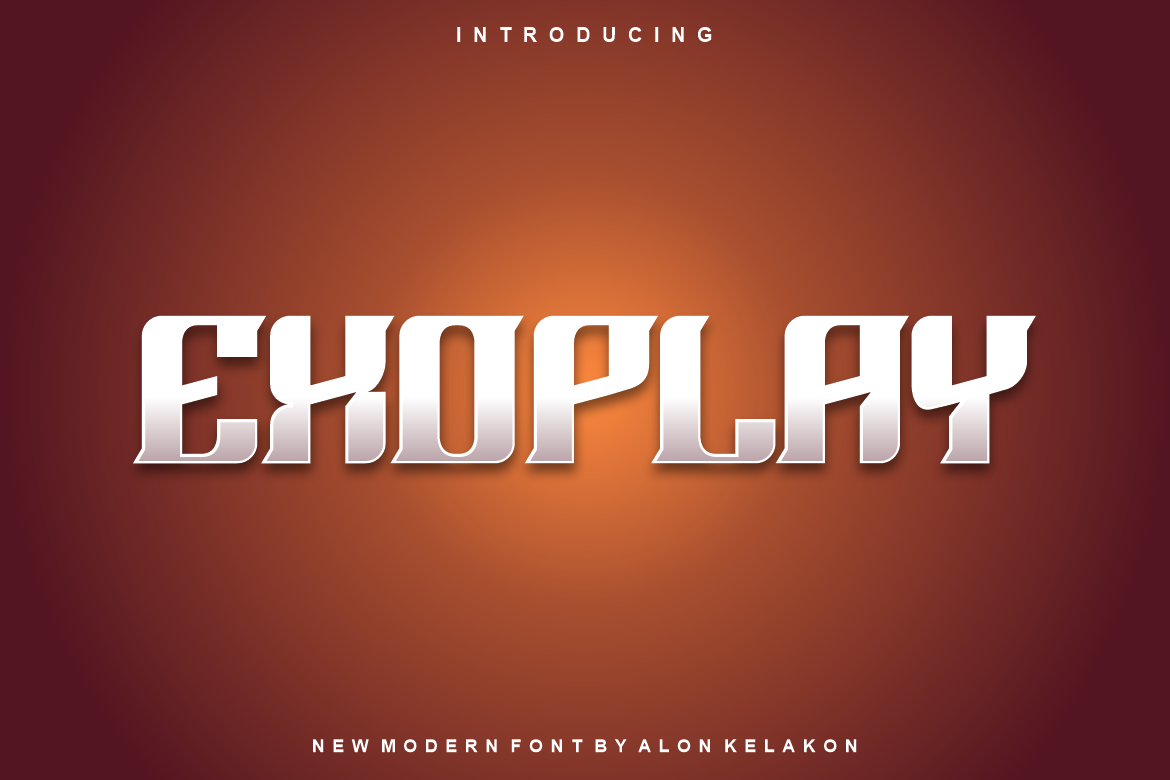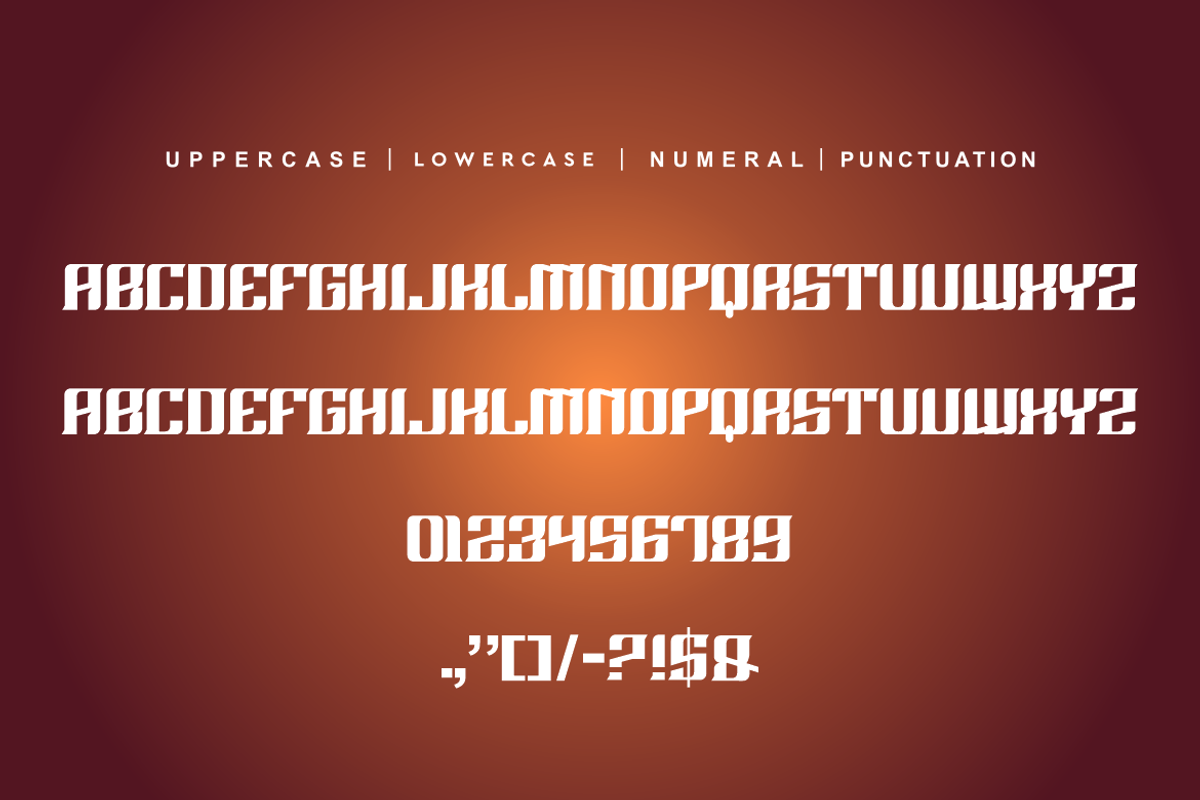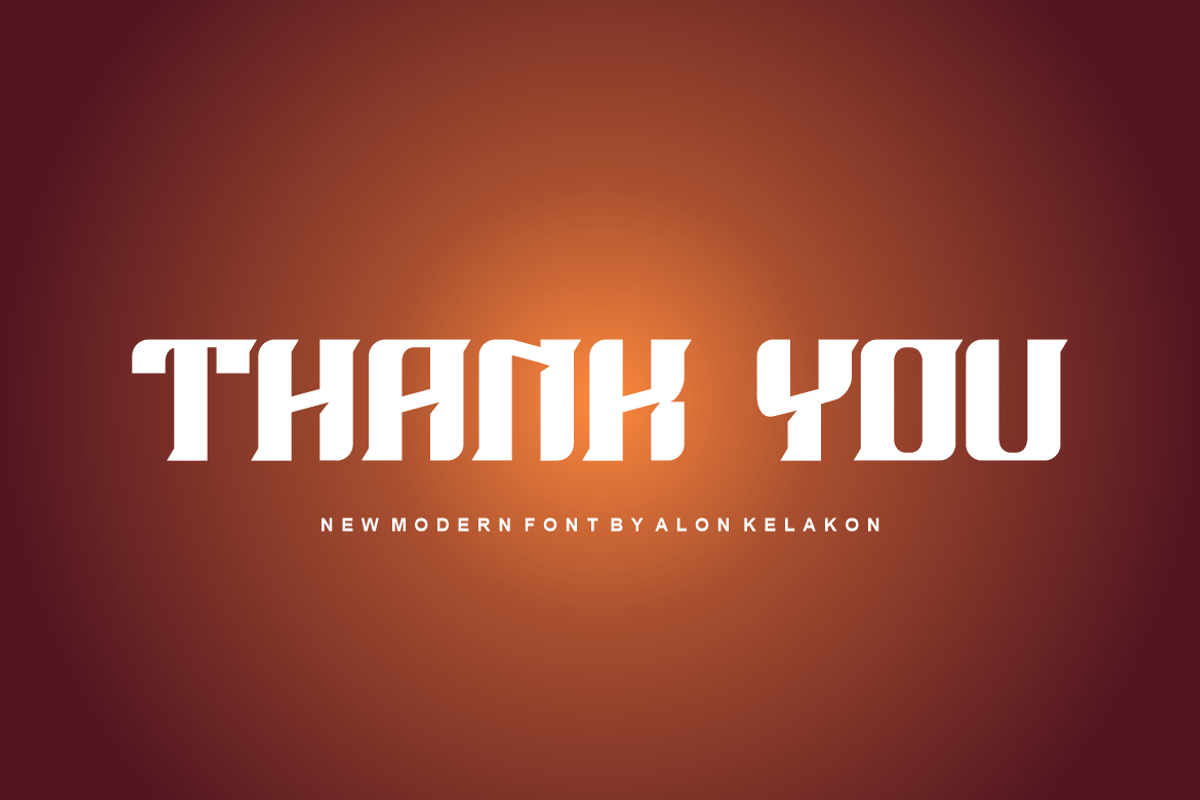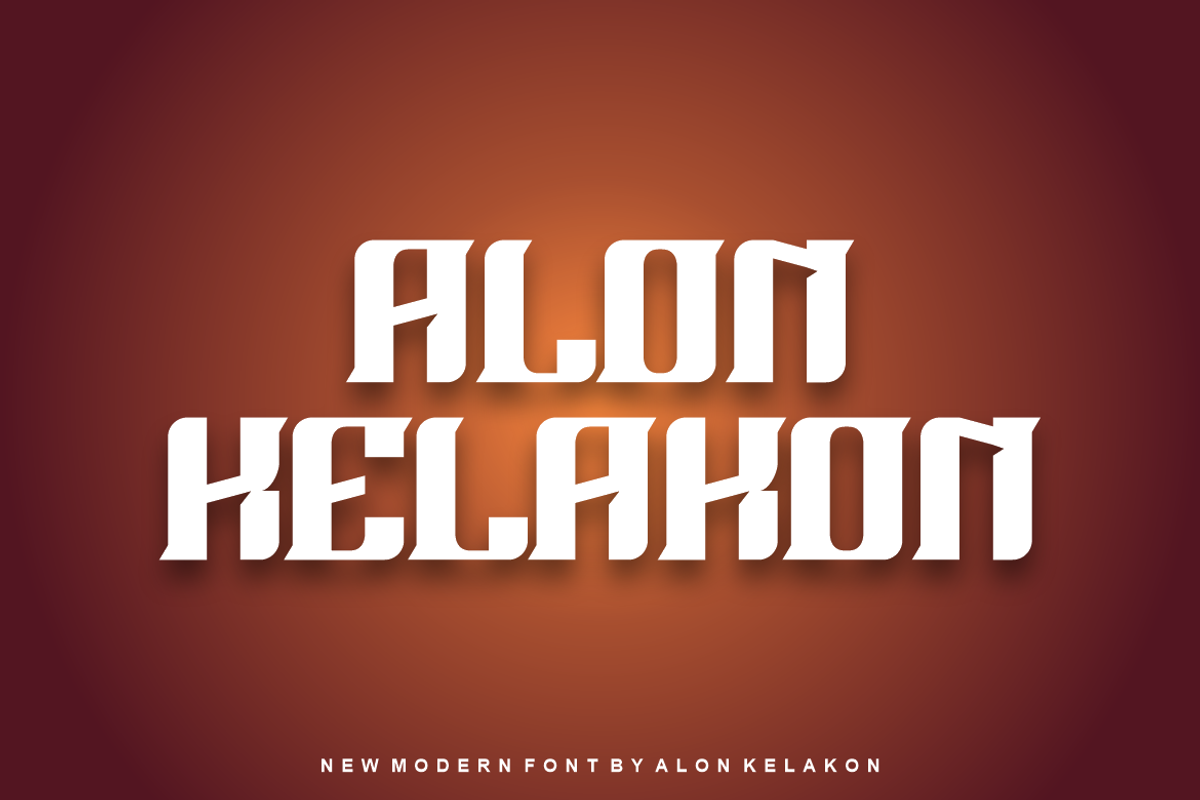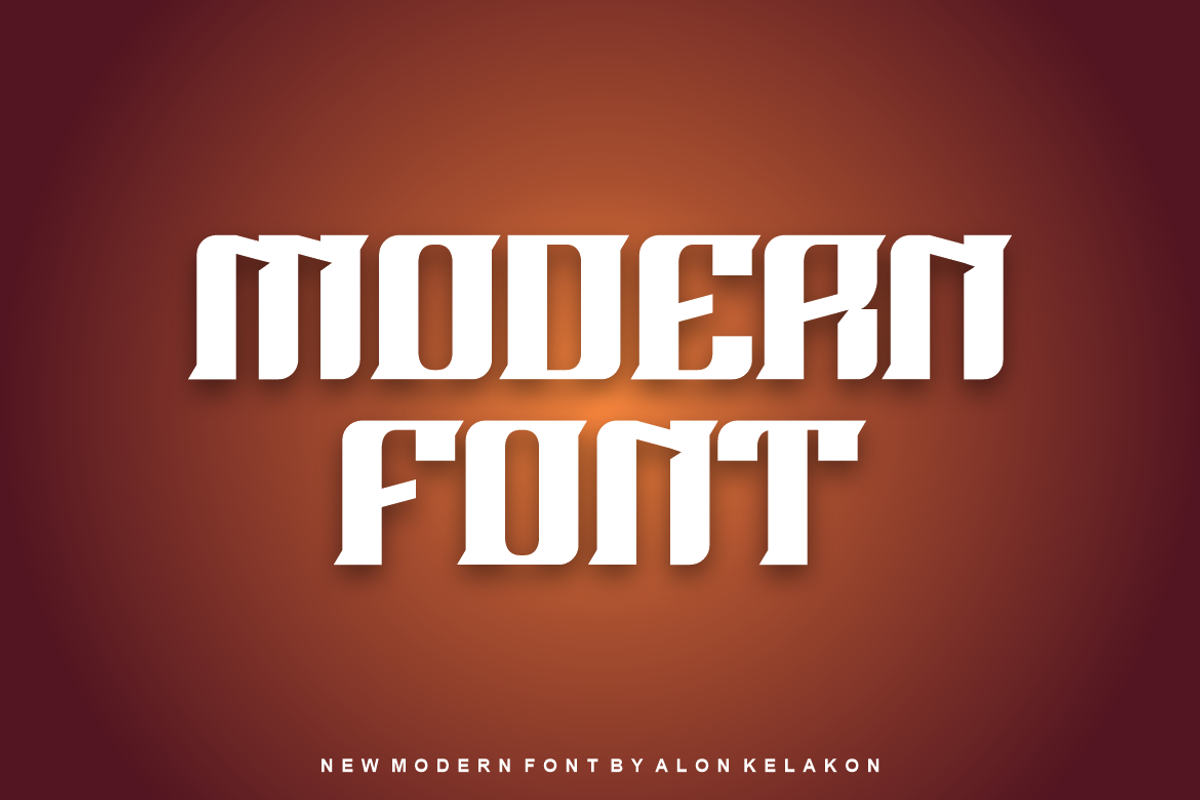
Exoplay Font
Exoplay Font Font is unique . Ready to use for your design like labeling, clothing, movie sceen, poster, movie title, gigs, album covers, logos, and much more.